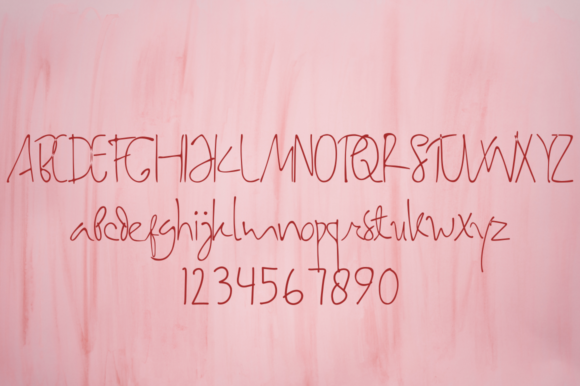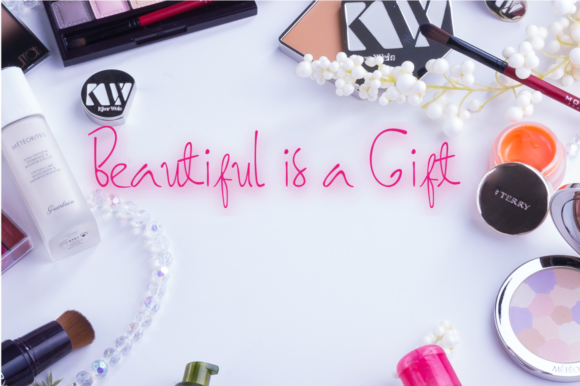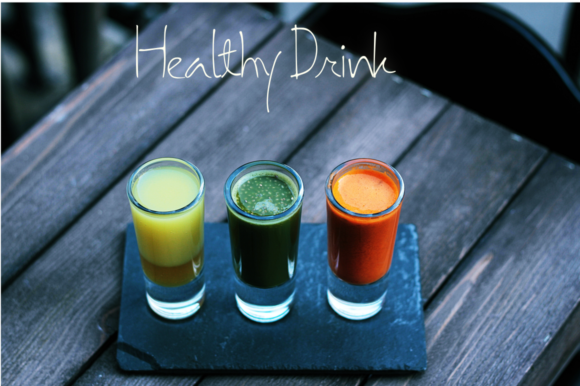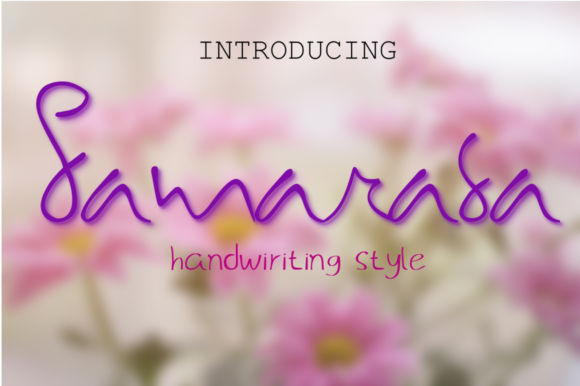
Samarasa Font
The Samarasa is a feminine handwritten font. It gives a clean and elegant impression, which can be used for beauty products, business cards, health products, and much more!